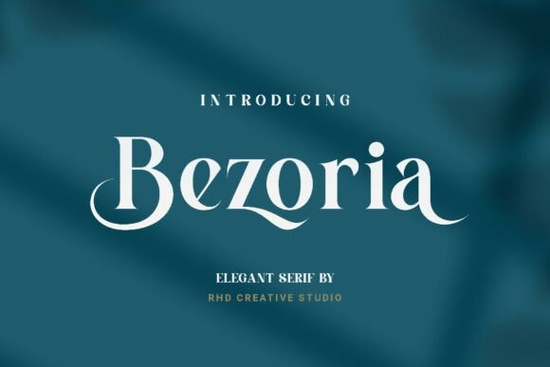
If you've been searching for a serif typeface that feels polished without being stiff, Bezoria is worth a closer look. It's an elegant serif font designed for projects where typography needs to carry a sense of refinement think wedding invitations, boutique branding, editorial spreads, and luxury logo design. The letterforms are clean and balanced, with just enough personality to feel distinctive rather than generic.
What makes Bezoria different from other serif fonts?
There's no shortage of serif fonts available today, so what sets this one apart? Bezoria sits in a sweet spot between classic and modern. It doesn't try to be overly decorative or heavy-handed. Instead, the strokes and proportions are carefully crafted to feel understated yet authoritative.
Compared to something like a bold serif option like Worldstar, which leans toward a stronger, more impactful look, Bezoria opts for grace. It works beautifully when you need your text to feel sophisticated without dominating the design. On the other end of the spectrum, fonts with more expressive character like Chatos Original can be great for creative projects, but they're not always the right fit for formal or high-end branding. Bezoria fills that gap nicely.
Here are a few qualities that designers tend to appreciate:
- Well-proportioned letterforms that stay readable at both small and large sizes
- Refined serifs that add structure without looking old-fashioned
- Consistent weight and spacing across the full character set
- A versatile aesthetic that pairs well with both serif and sans-serif typefaces
Who is Bezoria best suited for?
This font is a solid choice for a wide range of creatives. If you're a graphic designer working on branding packages, Bezoria gives you a reliable serif option that communicates professionalism. Wedding stationery designers will find it especially useful for invitation suites, menu cards, and thank-you notes the kind of projects where a refined typeface makes all the difference.
Small business owners who are building their own brand identity can also benefit. Not every entrepreneur has the budget for a custom typeface, and a well-designed serif font like this one can help bridge that gap. It's particularly effective for businesses in fashion, beauty, wellness, and hospitality industries where visual presentation matters a lot.
Print-on-demand sellers and crafters designing products for platforms like Etsy or Creative Market can use Bezoria for quotes, greeting cards, and decorative prints. The elegant style lends itself well to products that target a design-conscious audience.
What types of projects work well with this font?
Bezoria is versatile enough to handle a range of design applications. Some of the most common uses include:
- Logo design especially for luxury brands, boutiques, and professional services
- Wedding and event stationery invitations, programs, place cards, and signage
- Editorial layouts magazine headers, book titles, and article headlines
- Website headers and hero text when you need a serif that reads well on screen
- Social media graphics quotes, announcements, and promotional posts
- Packaging design product labels, boxes, and shopping bags for premium goods
It pairs particularly well with a clean sans-serif for body text. Try combining Bezoria headings with a simple sans-serif like Montserrat or Lato for a balanced, professional layout.
How do I get the most out of Bezoria?
A few practical tips for working with this typeface:
- Give it room to breathe. Use generous line spacing and letter-spacing, especially at larger sizes. Elegant serifs tend to look best with a bit of extra whitespace around them.
- Stick to appropriate contexts. Bezoria shines in refined, high-end designs. It might feel out of place in a project that calls for a playful or casual tone.
- Test at multiple sizes. Preview your text at the actual size it will appear in your final design. What looks great at 72pt might need slight adjustments at 14pt.